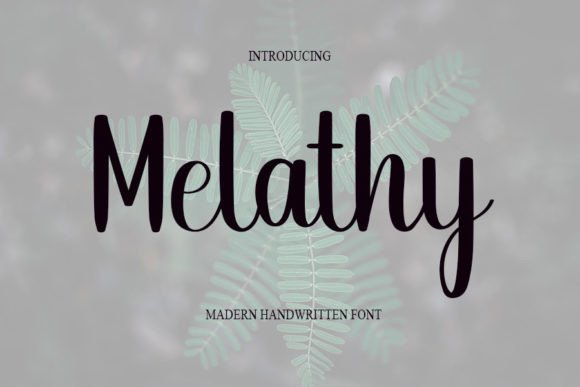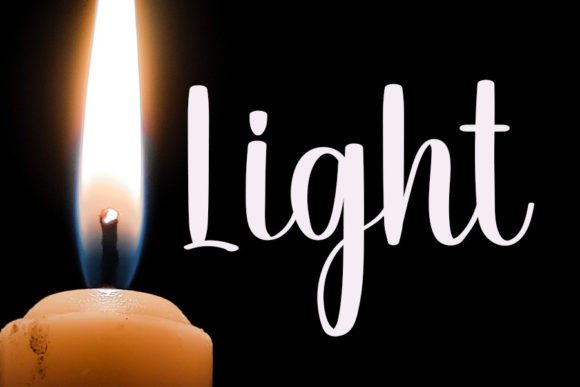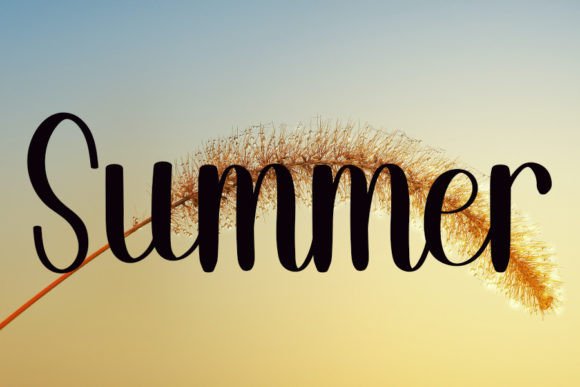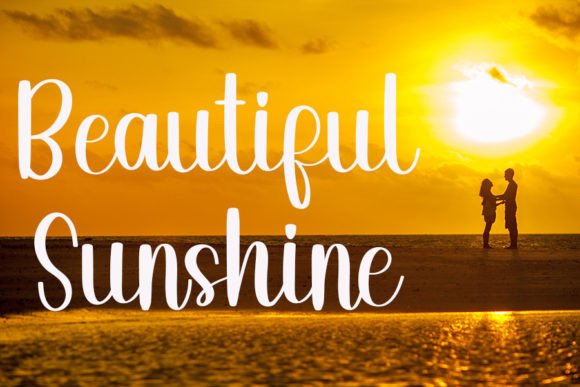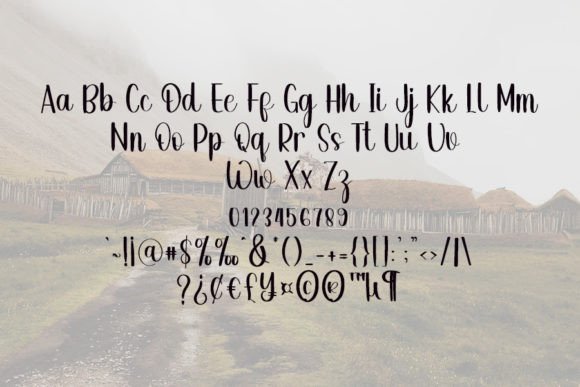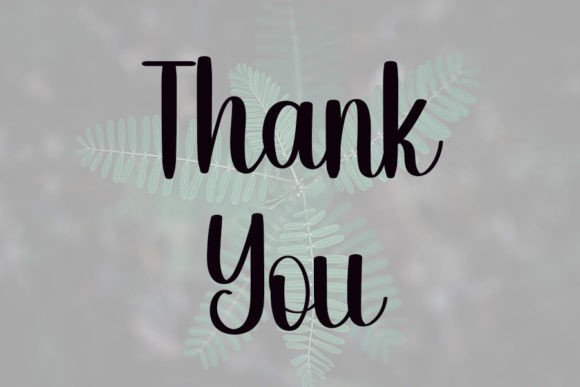
Melathy Font
About Melathy Font
Melathy is a delightful handwritten font, meticulously crafted to secure its place as a cherished favorite. Balancing classic calligraphy influences with a contemporary and fresh feel, Melathy emerges as a versatile choice that promises to invigorate your font library and infuse vitality into all your creative projects.
The friendly and approachable nature of Melathy is immediately evident, creating a welcoming and warm atmosphere. Carefully designed, each letter maintains a perfect balance between timeless calligraphy elements and a modern aesthetic. This duality ensures that Melathy stands out as a font that feels both familiar and on-trend.
Adding Melathy to your font library is akin to acquiring a timeless yet contemporary creative tool. Its versatility allows it to seamlessly integrate into various design projects, from sophisticated branding and elegant invitations to engaging digital content. Melathy becomes more than a font; it transforms into a reliable companion that enhances the visual allure of your work with its distinctive personality.
Incorporating Melathy into your designs invites a touch of creativity and sophistication. Its handwritten charm not only adds a personal dimension to your projects but also communicates a sense of elegance and freshness. Whether you’re working on refined designs or projects that require a contemporary flair, Melathy rises to the occasion with grace.
In summary, Melathy transcends its role as a mere font; it’s a friendly and stylish design asset that breathes life into your creative endeavors. Embrace its classic yet fresh appeal, add it to your font library, and witness how it transforms your projects, making them vibrant and captivating.